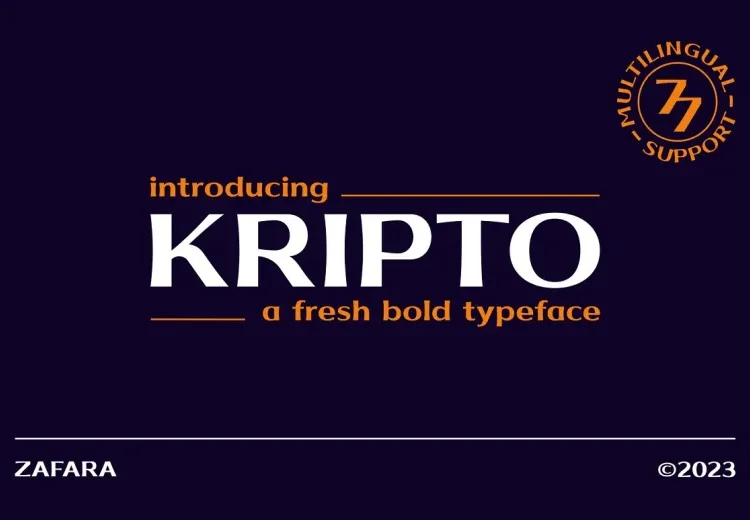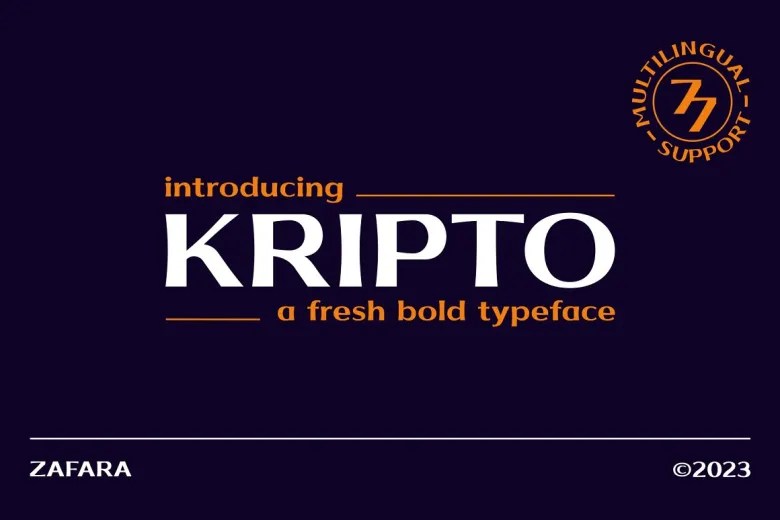
Kripto Font
Kripto Font is a bold and expansive typeface designed to make a strong impression. With its large, commanding presence, Kripto is ideal for a variety of impactful design applications.
Key Features of Kripto Font:
• Bold and Wide: Kripto’s large, bold letters are designed to stand out and make a statement. Its expansive form is perfect for grabbing attention and making a significant visual impact.
• Versatile Applications: Whether you need to create compelling titles, striking headlines, or authoritative branding materials, Kripto excels in a range of uses. It is particularly effective for calls-to-action, branding logos, signage, and displays.
• Modern and Playful: The font’s design is versatile enough to convey both modernity and playfulness. It’s suitable for a variety of contexts, from innovative and cutting-edge branding to more casual and engaging social media graphics.
• Comprehensive Use: Ideal for signage, packaging, social media graphics, and more, Kripto’s bold and wide style ensures it can handle a broad spectrum of design needs.